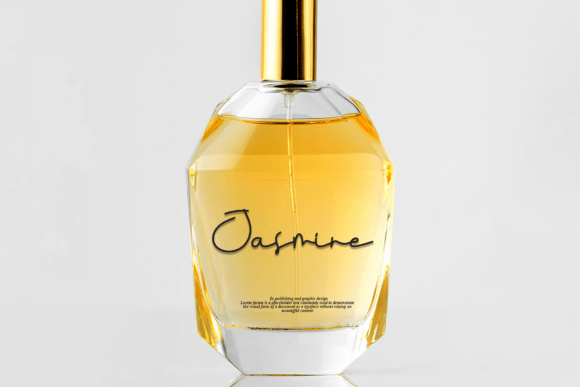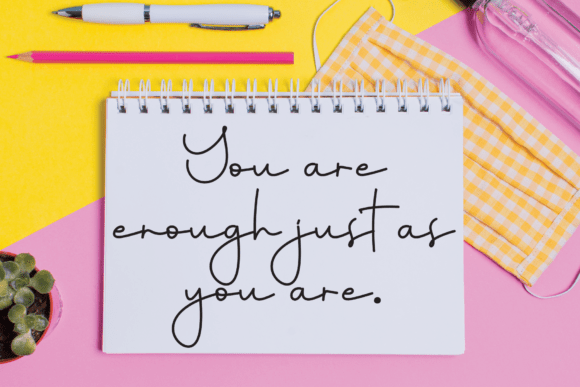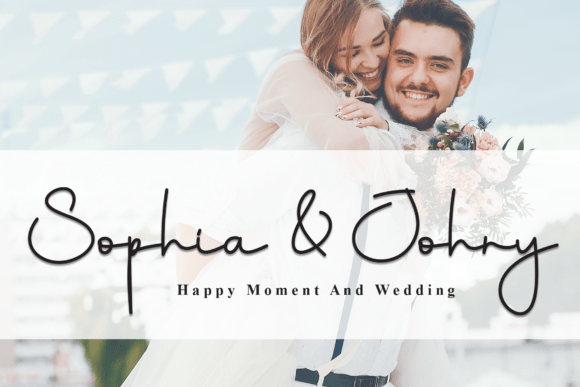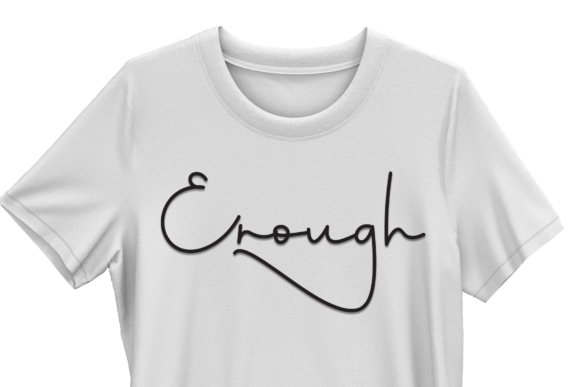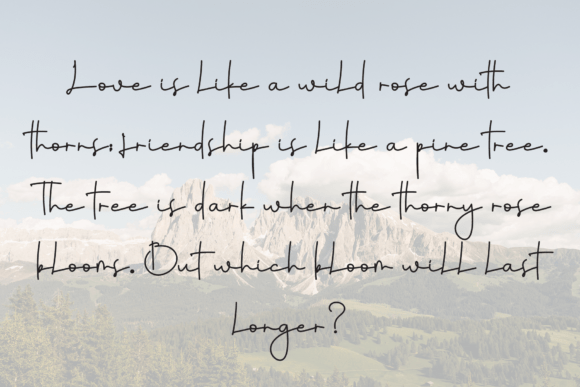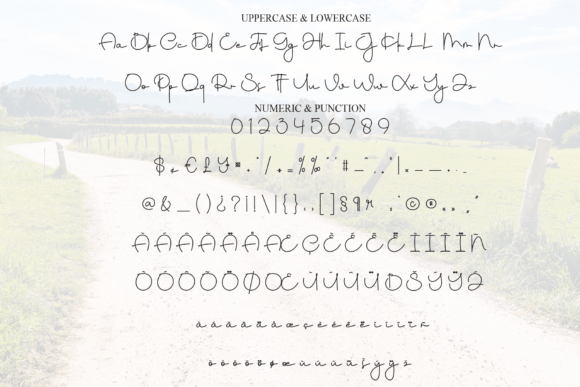
Introduction to Countryroad Font
Countryroad is a stylish handwritten script font that radiates fresh elegance and delicate charm.
Its flowing strokes and graceful curves evoke a sense of renewal, perfect for invitations, branding, and seasonal designs This lovely typeface adds a soft, personal touch and uplifting feel to any project.